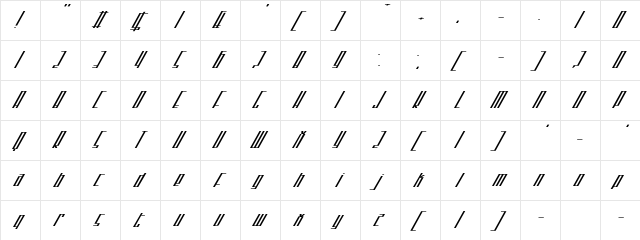
Noseblood Regular
Design Context for Noseblood Typeface
Noseblood carries an unsettling edge — its distorted letterforms are built to unsettle, perfectly suited to horror, Halloween, and dark creative work.
Perfect for anything that needs to unsettle — game titles, horror branding, and macabre invitations.
Font Pairing: Pair with a clean neutral sans-serif for body copy to let Noseblood's character lead without overwhelming the composition.
Pro Tip: Use Noseblood at larger display sizes for maximum impact. Consider generous tracking to let the disturbing character of each letterform breathe.